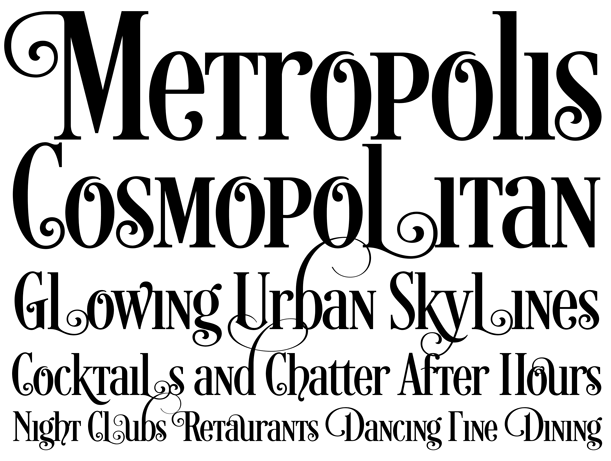
Desire
About Desire
With over five years of design and development, Desire is a pursuit of epic proportions and ready to make a statement by adding elegance and unique flair to your next design project. Cultivated by his passion of letters, Charles Borges de Oliveira has…